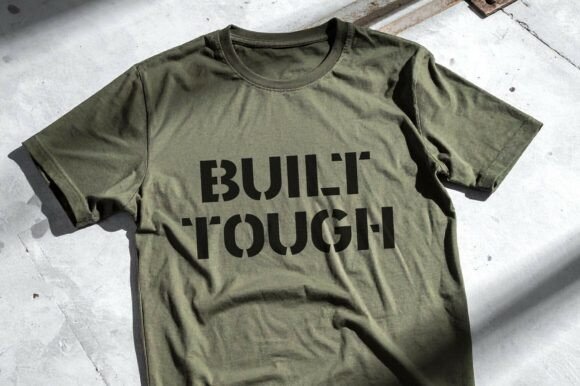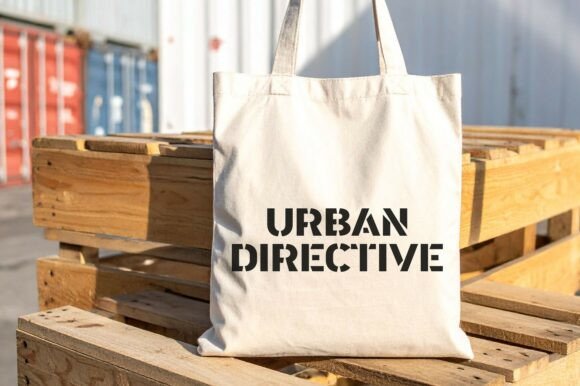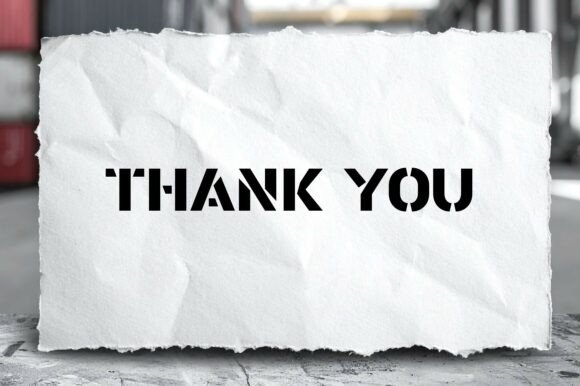
The Industrial Edge: Unleashing the Power of Area Stencil Font
Imagine you’re rummaging through an old factory, surrounded by the remnants of a bygone era. You stumble upon an old sign, worn out but still radiating an aura of strength and resilience. The letters are bold, the lines are clean, and the overall feel is unmistakably industrial. That’s the kind of impact you can create with the Area Stencil Font, a powerful display font designed to make a statement.
Area Stencil Font is a masterclass in utilitarian design, with its classic stencil cutouts and bold uppercase letterforms. This font is not just a tool for designers; it’s a way to convey authority, strength, and a sense of enduring quality. Whether you’re creating a branding campaign or designing a product label, the Area Stencil Font is an excellent choice for projects that demand a rugged, tough, and urban feel.
Key Features of Area Stencil Font
- Unique Characteristics: Stencil-style font with bold, geometric lines and a retro aesthetic
- Font Weight: Offers a range of weights, from Light to Black, for flexible typography options
Review: Area Stencil Font
Overall, I’m impressed with the Area Stencil Font. Here are some aspects that work well:
- ✨ Unique aesthetic: The font has a distinctive stencil look that adds a touch of edginess to any design.
- ✨ Versatile: It’s suitable for various projects, from posters and flyers to branding and packaging.
- ✨ Easy to read: The font is clear and legible, making it perfect for body text and headings.
- ⚠️ Limited character set: The font only comes with a basic set of characters, which may not be sufficient for more complex projects.
- ⚠️ Not ideal for small text: The font’s stencil design can make small text difficult to read, so it’s best used for larger font sizes.
- ⚠️ May not be suitable for high-end branding: While the font is great for casual designs, it may not be the best choice for high-end branding or corporate materials.
Overall, I’d give the Area Stencil Font 4 out of 5 stars. It’s a great choice for designers looking for a unique, easy-to-read font that adds a touch of personality to their projects. Just be mindful of its limitations and use it accordingly.
Use the Area Stencil Font to add a unique touch to your designs, such as:
- Creating a vintage or distressed look.
- Adding texture to your text.
- Creating a playful or whimsical feel.
Remember to experiment with different font sizes, colors, and spacing to get the most out of this font.